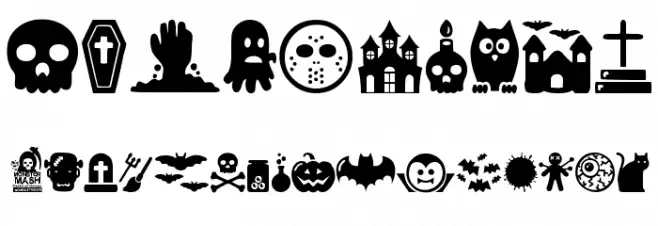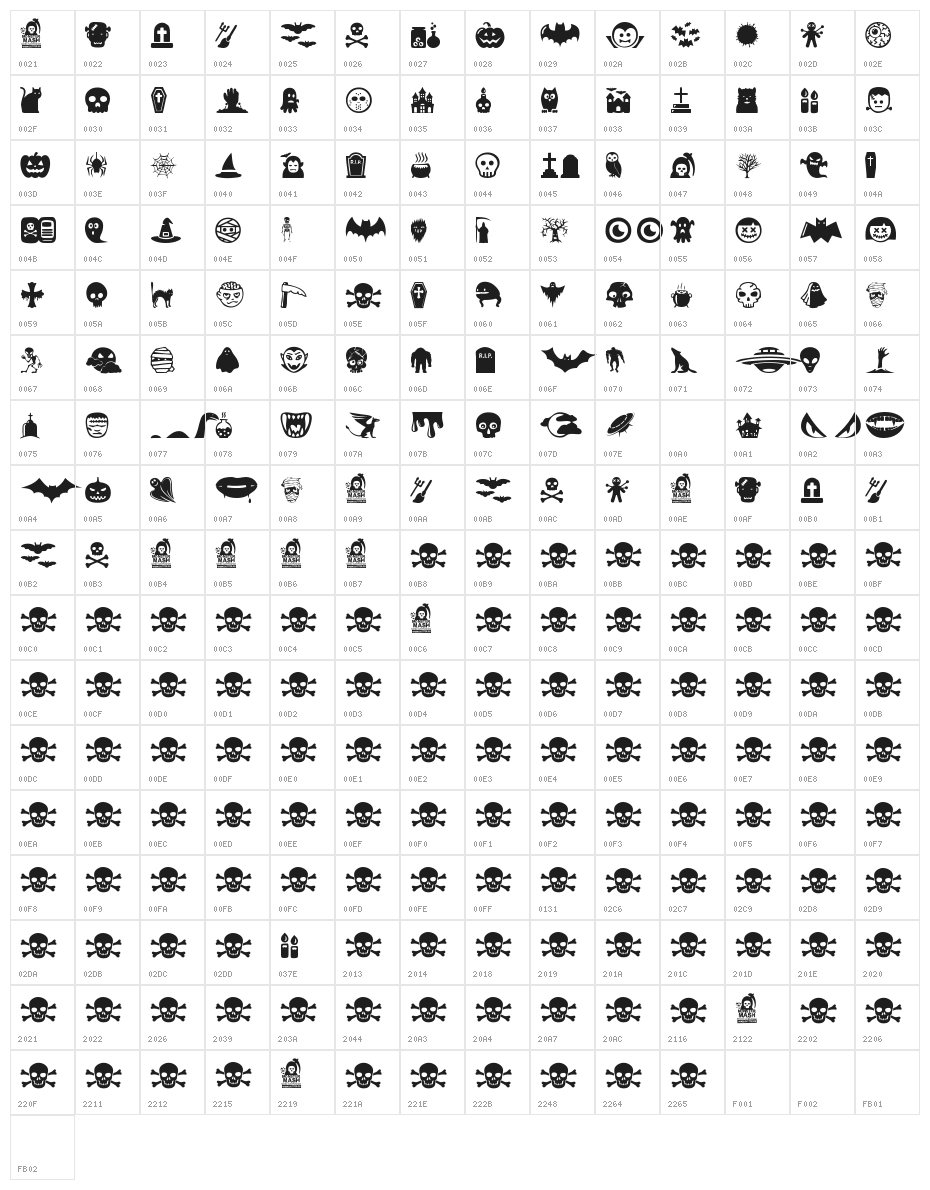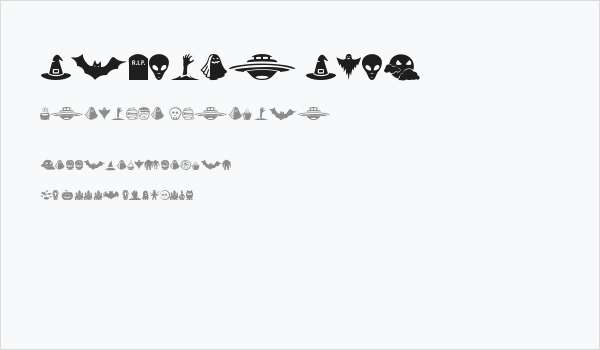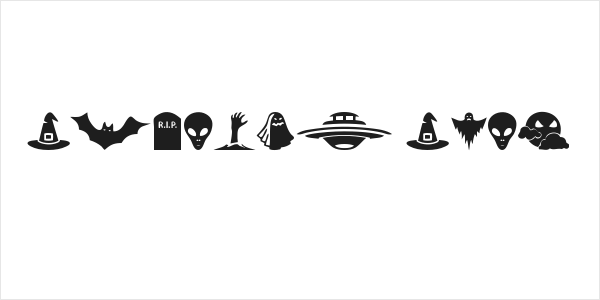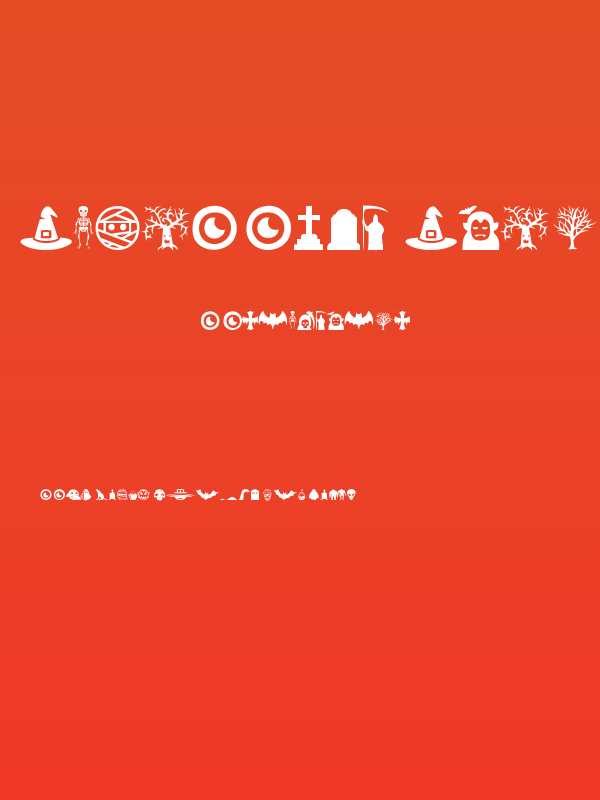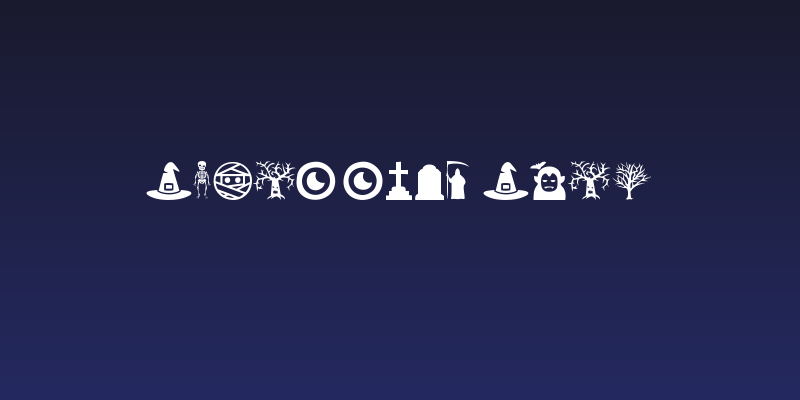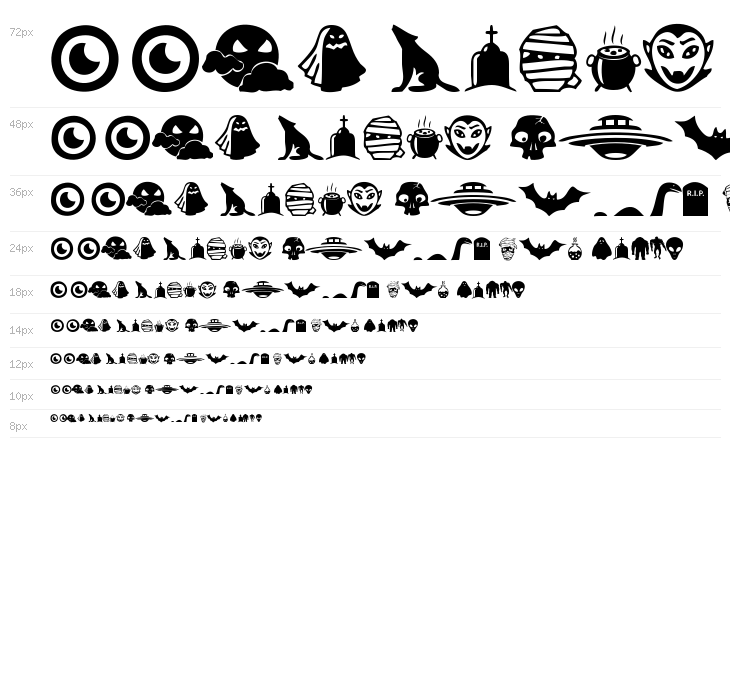
Monster Mash Font
Monster Mash Description
A decorative display font composed entirely of bold, high-contrast Halloween-themed pictograms and silhouettes, including skulls, monsters, tombstones, bats, witches, and other spooky icons. The glyphs are solid black, with playful and varied shapes, designed for visual impact rather than legibility of traditional letterforms.
| Overall Style | Decorative, Playful, Thematic |
| Use Case | Logos, Headlines, Themed graphics |
| Proposed Projects | Party invitations, event posters, holiday decorations, themed social media graphics, children's crafts, and seasonal branding. |